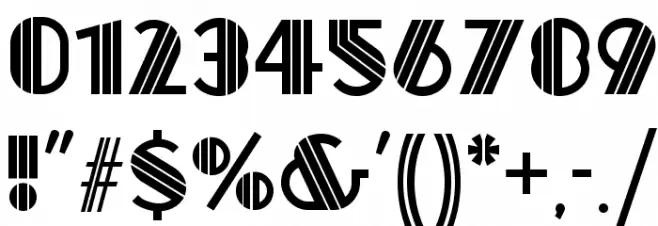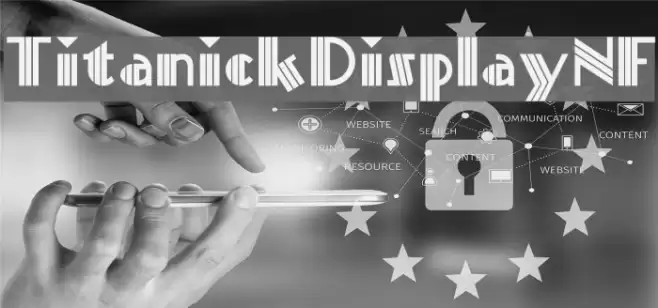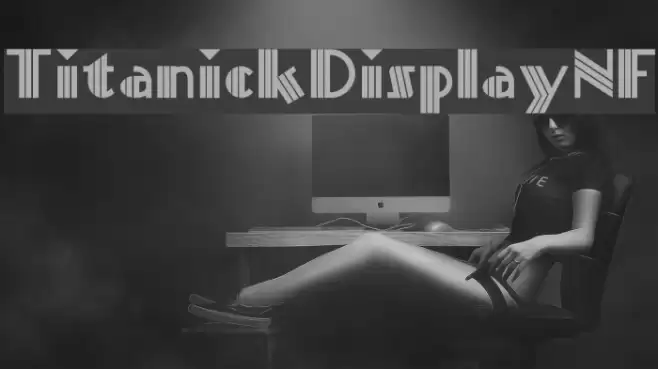
TitanickDisplayNF Font
TitanickDisplayNF Description
This font exhibits a bold, geometric style with a strong emphasis on vertical lines and angular shapes. The uppercase letters are characterized by their distinct, parallel line patterns that create a sense of movement and energy. The lowercase letters maintain this theme, offering a cohesive look that is both modern and striking. Numbers and special characters follow the same design principles, ensuring consistency across all elements. The overall appearance is dynamic and eye-catching, making it suitable for projects that require a bold statement.
| Proposed Projects | Ideal for posters, branding, headlines, and any design that requires a bold, modern aesthetic. |